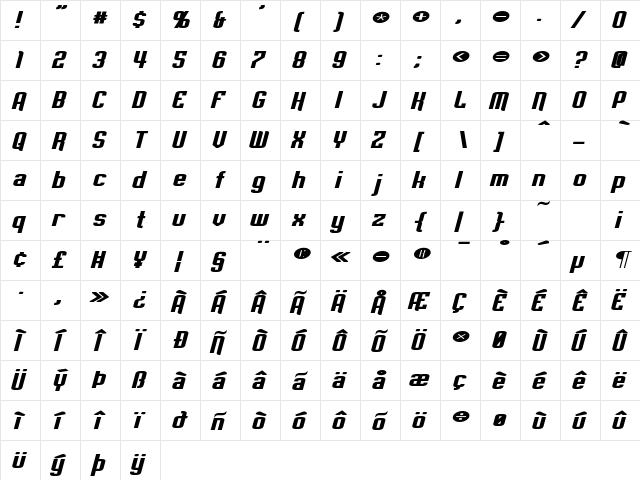
Empanada Expanded Italic Font Preview
Empanada Expanded Italic
| Foundry | Neale Davidson |
| Designer | Neale Davidson |
Design Context for Empanada Expanded Typeface
Empanada Expanded is a composed and adaptable typeface that performs quietly and consistently across a wide range of design contexts. The dynamic lean of this cut emphasises speed and emphasis in any layout.
Pro Tip: Try Empanada Expanded for annotation and caption copy alongside an upright companion — the contrast in angle creates a dynamic but ordered typographic system.